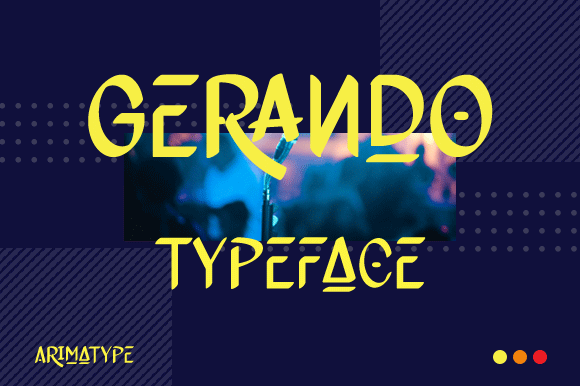
Introducing Gerando Font, a typographic masterpiece designed to ignite your visual storytelling! As the heart of your website headers, Gerando will captivate your audience with its alluring curves and captivating energy.
Dive into a world of endless possibilities, where Gerando's adaptability knows no bounds. From edgy streetwear logos to vibrant social media campaigns, this font chameleon effortlessly blends with any design aesthetic.
With Gerando, your website headers will transcend the ordinary, becoming unforgettable works of art. Its bold strokes and playful spirit will draw in visitors like moths to a flame, captivating their attention and leaving a lasting impression.
For those seeking a font that embodies both style and substance, Gerando is your perfect match. Its meticulously crafted characters exude sophistication, inviting users to linger and explore your digital haven.
But Gerando is more than just a pretty face. It's a strategic tool that will elevate your website's performance. Its readability and visual appeal will guide users effortlessly through your pages, enhancing their overall experience and driving conversions.
So, why settle for ordinary fonts when you can unleash the extraordinary with Gerando? Embrace its versatility, ignite your creativity, and watch your website headers soar to new heights of visual splendor!